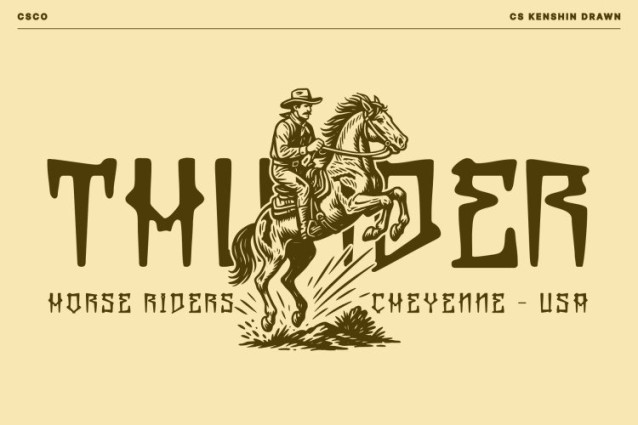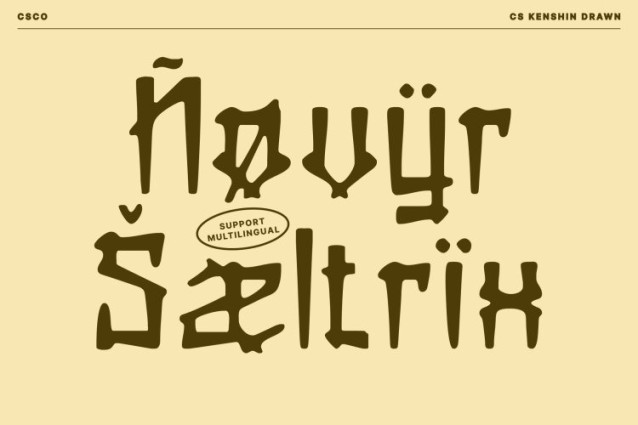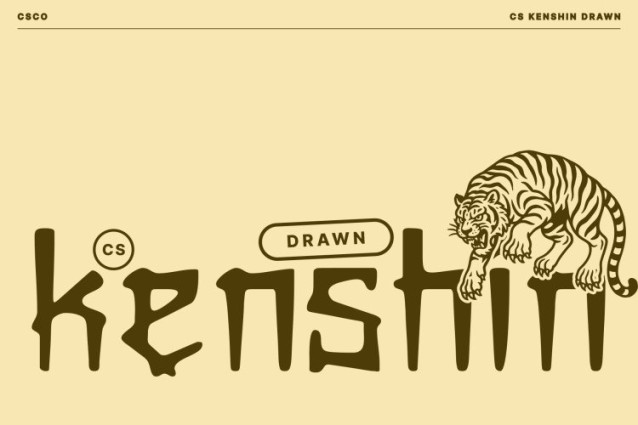
CS Kenshin Drawn Font
CS Kenshin Drawn Font This captures the unmistakable flair of Chicano graffiti, blending sweeping strokes, decorative forms, and urban rhythm into a striking display font. Each character carries the bold personality of street lettering, infused with expressive movement and cultural depth. This makes the font instantly recognizable and perfect for designs that want to radiate authenticity and street-inspired artistry.
Brutalist Energy Enhanced by Hand-Drawn Texture
Adding a modern twist, this font incorporates a subtle brutalist vibe that gives the letterforms structure, strength, and dramatic presence. The hand-drawn effect softens the edges while adding raw texture, creating a balance between tough and artistic.
Ideal for Bold Posters, Music Visuals, and Creative Branding
This font thrives in projects that demand high energy and strong emotion. Whether you’re designing music artwork, streetwear branding, bold posters, or digital visuals, this font instantly elevates the composition with its dynamic style. Its graffiti-influenced forms give every title a sense of movement and rebellion, making the design impossible to ignore.
Perfect for Designers Seeking Expressive Urban Aesthetics
This font offers designers a chance to highlight individuality through expressive typography. Its mix of Chicano curves, brutalist shapes, and hand-drawn textures creates a uniquely personal atmosphere ideal for branding, merchandise, event graphics, or any creative project looking to stand out with confidence and edge.